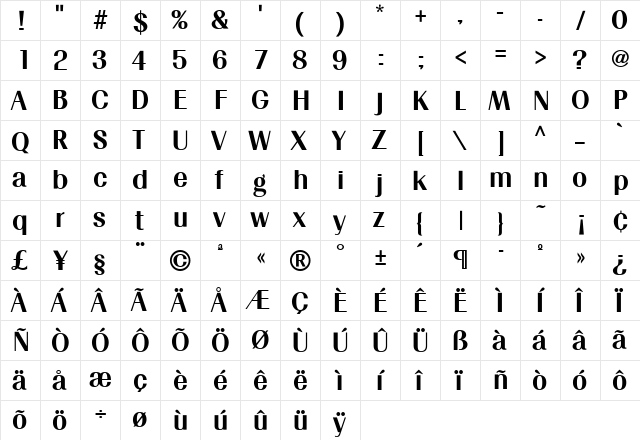
Renoir Regular
Design Context for Renoir Typeface
Renoir offers clean, dependable letterforms without strong stylistic allegiance, making it a practical choice for designers who need flexibility.
Pro Tip: Use Renoir in both headline and body roles to test its range before committing to a single application.